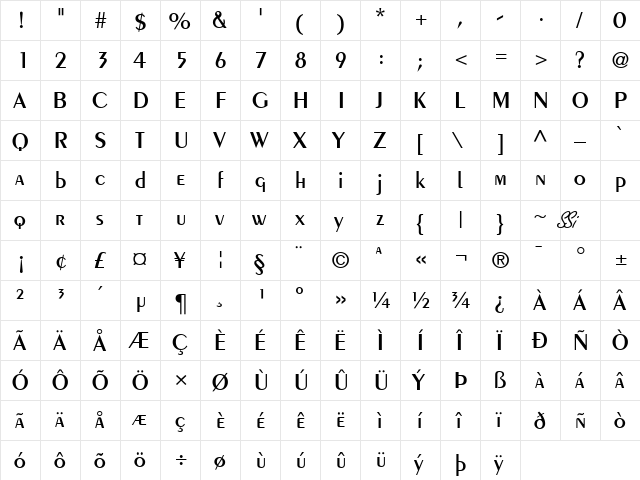
Creme SSi Semi Bold Font Preview
Creme SSi Semi Bold
Creme SSi Semi Bold Font Details
| Style | Semi Bold |
Design Context for Creme SSi Typeface
Creme SSi offers clean, dependable letterforms without strong stylistic allegiance, making it a practical choice for designers who need flexibility. Its bold stroke weight gives it real presence on the page.